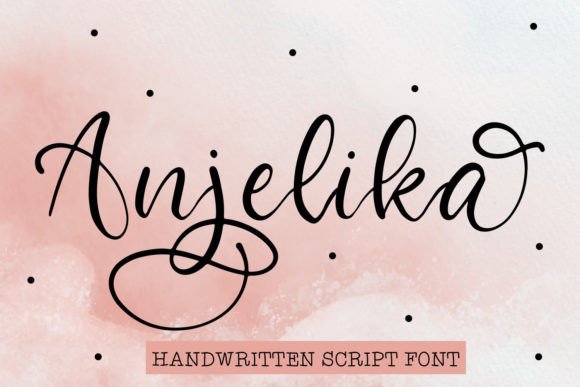
Introducing Anjelika Font: The Elegant Handwritten Script Font for Your Design Needs
Are you looking for a beautiful and elegant handwritten script font to add a touch of sophistication to your designs? Look no further than Anjelika Font. This stunning font is perfect for a variety of design projects, including wedding invitations, thank you cards, quotes, greeting cards, logos, business cards, and more.
What Makes Anjelika Font So Special?
Anjelika Font is a beautifully crafted handwritten script font that exudes elegance and sophistication. Its flowing lines and delicate curves make it perfect for designs that require a touch of refinement. The font comes with additional stylistic alternates, which allow you to add more variety and creativity to your designs.
One of the standout features of Anjelika Font is its PUA (Private Use Area) encoding. This means that you can access all the glyphs and ligatures with ease, making it simple to use and incorporate into your designs. Whether you’re a professional designer or a DIY enthusiast, Anjelika Font is easy to use and requires no special technical expertise.
The Perfect Font for Wedding and Event Designs
Wedding invitations, thank you cards, and other event designs require a special kind of font that conveys romance, elegance, and sophistication. Anjelika Font is the perfect choice for these types of designs. Its beautiful, flowing lines and delicate curves make it ideal for creating stunning wedding invitations, save-the-date cards, and other event materials.
But Anjelika Font is not just limited to wedding designs. It’s also perfect for creating beautiful quotes, greeting cards, and other social media graphics. The font’s elegant and refined appearance makes it suitable for a wide range of design projects, from personal to commercial.
Key Features of Anjelika Font
- Beautiful and elegant handwritten script font: Anjelika Font is a stunning handwritten script font that adds a touch of sophistication to any design.
- Additional stylistic alternates: The font comes with additional stylistic alternates, which allow you to add more variety and creativity to your designs.
- PUA encoded: Anjelika Font is PUA encoded, making it easy to access all the glyphs and ligatures.
- Perfect for a variety of design projects: Anjelika Font is suitable for a wide range of design projects, including wedding invitations, thank you cards, quotes, greeting cards, logos, business cards, and more.
In conclusion, Anjelika Font is a beautiful and elegant handwritten script font that is perfect for a variety of design projects. Its flowing lines, delicate curves, and additional stylistic alternates make it a versatile font that can add a touch of sophistication to any design. With its PUA encoding and ease of use, Anjelika Font is a great choice for designers and DIY enthusiasts alike.